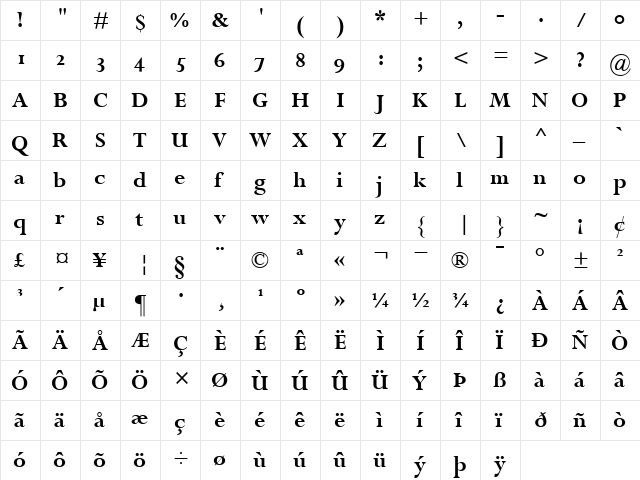
PerpetuaOldstyleFigures Bold
Design Context for PerpetuaOldstyleFigures Typeface
PerpetuaOldstyleFigures brings classic typographic sensibility to the table — its serifs and measured letterforms reflect centuries of print heritage. Its bold stroke weight gives it real presence on the page.
Pro Tip: Set PerpetuaOldstyleFigures with slightly loose tracking in headlines to let each letterform's detail read clearly at display sizes.